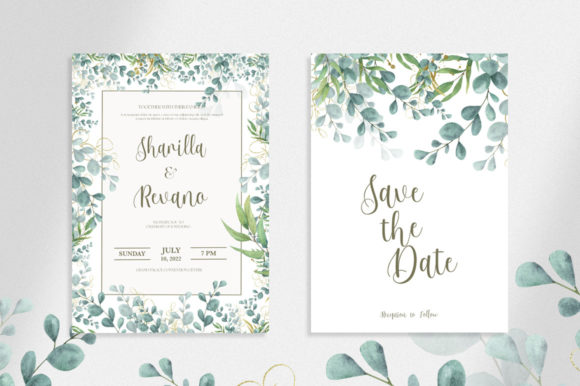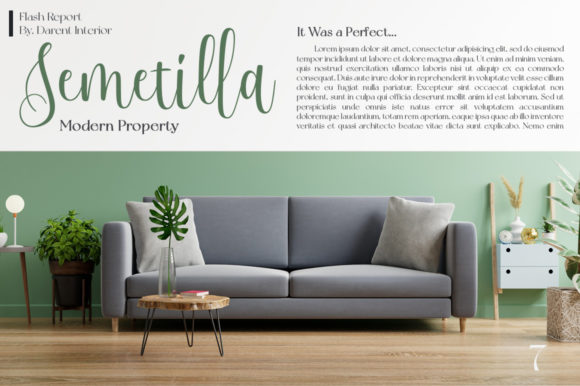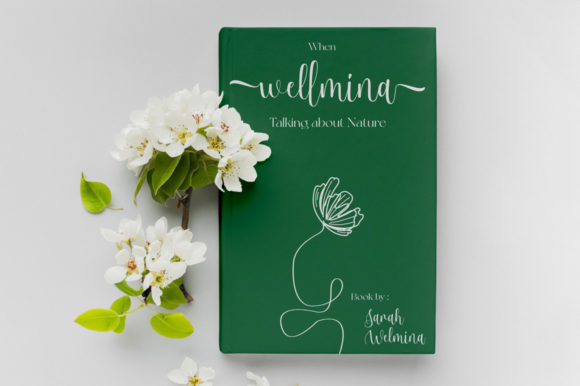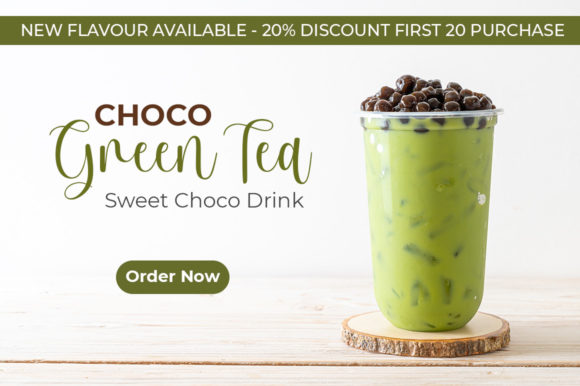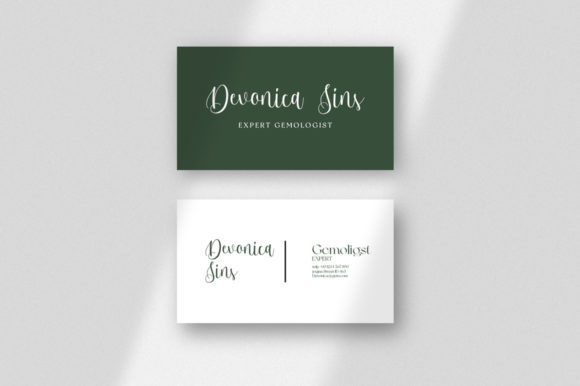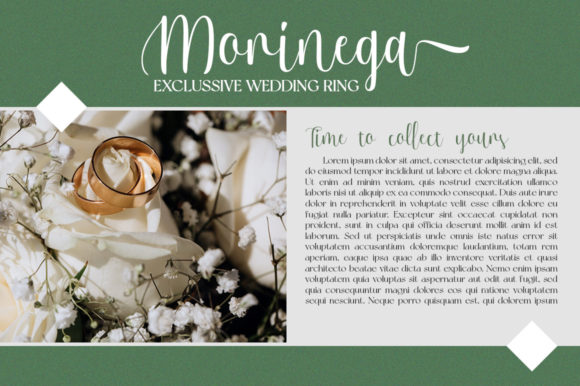
Introduction to Sellena Script Font
As a designer, there’s nothing quite like the thrill of finding the perfect font to elevate your creative project. You’re working on a design, pouring your heart and soul into it, when suddenly you stumble upon the perfect combination of elegance and whimsy – it’s like the missing piece falls into place. For me, that moment came when I discovered the Sellena Script Font. Its delicate, flowing script is like a breath of fresh air, adding a touch of sophistication to any design.
The Sellena Script Font is more than just a pretty face; it’s a valuable design resource that can add depth and personality to your work. With its beautiful, well-balanced characters and PUA encoding, you can access all the glyphs and swashes with ease, making it the perfect choice for designers who want high-quality, custom-looking fonts without the hassle.
Whether you’re working on a free download or a high-end design project, the Sellena Script Font is sure to be a game-changer. Its versatility and charm make it an excellent addition to any design arsenal, and with a transparent background, you can seamlessly integrate it into your work. So why settle for anything less when you can have the perfect script font at your fingertips?
Key Features of Sellena Script Font
- High-quality, elegant script font suitable for various design projects, including wedding invitations, greeting cards, and creative branding.
- Perfect for creative projects requiring a touch of sophistication and elegance, such as watercolor effects, floral designs, or luxury branding.
- Available in a single style, with 270 glyphs, and supports a wide range of languages, including Latin-based scripts.
- Designed to be highly legible, even at small font sizes, making it suitable for a variety of design applications, from business cards to signage.
Honest Review: Sellena Script Font
As a designer, I’m always on the lookout for high-quality fonts that can elevate my creative projects. Recently, I came across the Sellena Script Font, and I was curious to see how it would perform.
First impressions are great – the font is free to download, which is always a plus. The transparent background option is a nice touch, allowing for easy integration with different design elements. ✨ The font itself is quite elegant, with a flowing script style that’s perfect for titles and headings.
Here are some of the things I like about Sellena Script Font:
- Some characters may not be available in certain languages
- Not ideal for body text, as it can be a bit difficult to read at smaller sizes
Overall, I think the Sellena Script Font is a solid addition to any designer’s toolkit. While it may not be perfect, it’s a great resource for creative projects that require a touch of elegance and sophistication. ✨
Tips for Getting the Most Out of Sellena Script Font
To get the most out of Sellena Script Font, use it sparingly to add emphasis to your design. Pair it with other fonts to create a visually appealing combination. Experiment with different font sizes, colors, and styles to find the perfect balance.